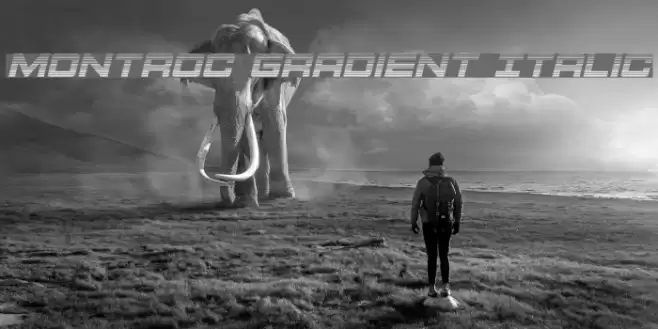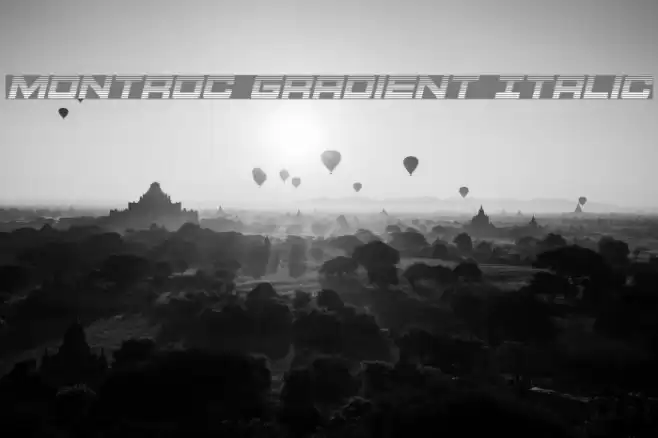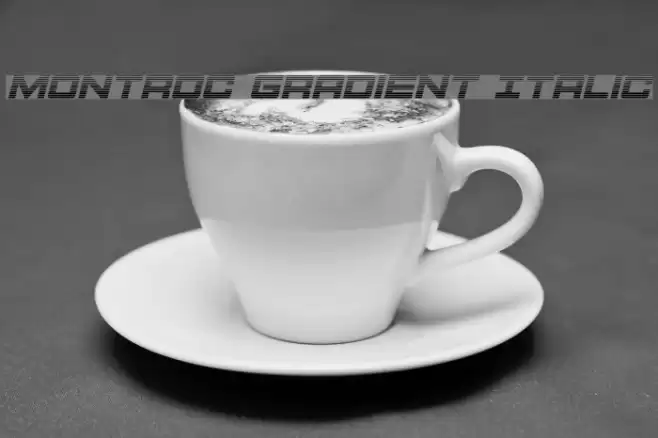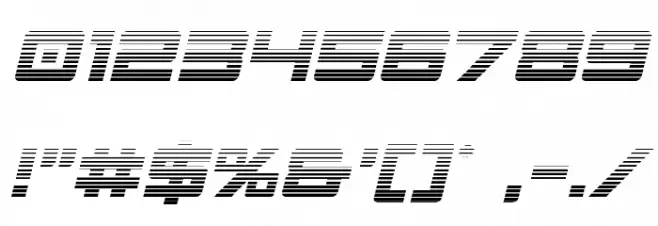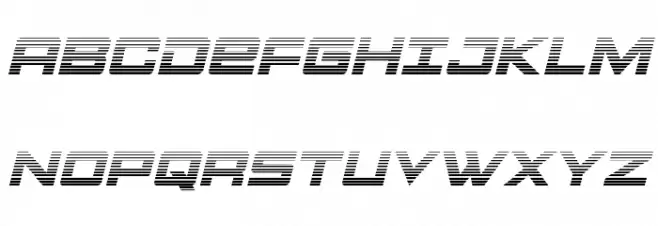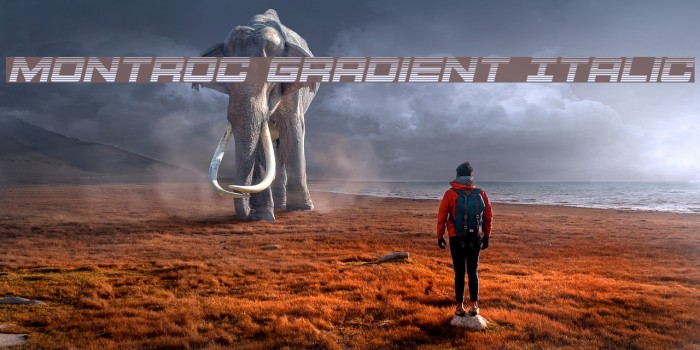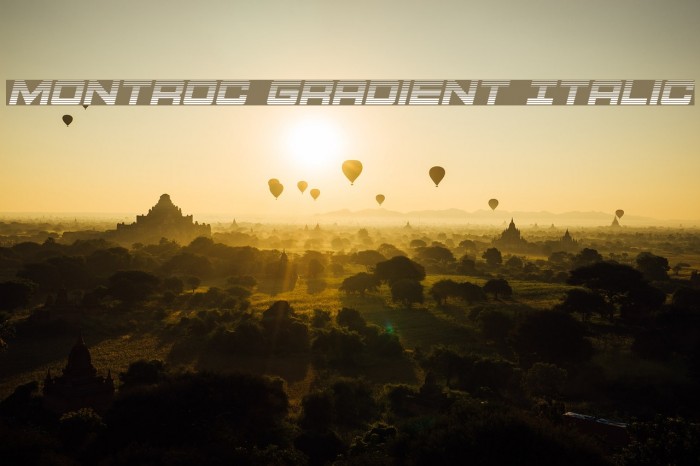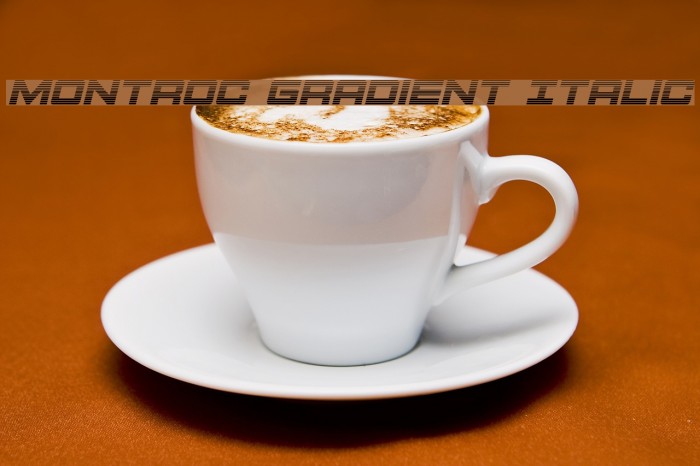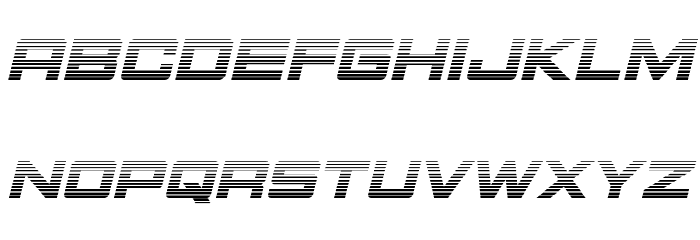
Montroc Gradient Italic Font
Montroc Gradient Italic Description
This font features a unique gradient effect within each character, creating a dynamic and futuristic appearance. The italicized style adds a sense of motion and energy, making it ideal for modern and tech-oriented designs. The characters are constructed with horizontal lines that vary in thickness, giving a sense of depth and dimension. This font is highly stylized and would stand out in any digital or print medium, offering a bold statement with its distinctive look.
A dynamic, gradient italic font with a futuristic and energetic style from Uncategorized fonts.
- Proposed Projects: Ideal for tech branding, futuristic posters, video game titles, and digital media.
- Overall Style: Futuristic
- Use Case: Headlines, Logos, Digital media